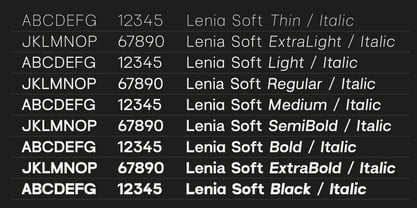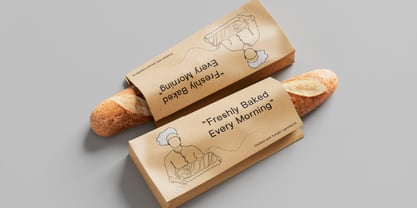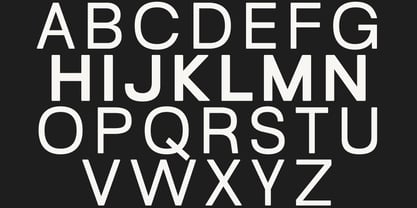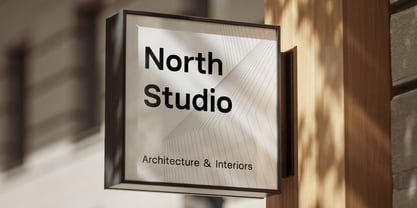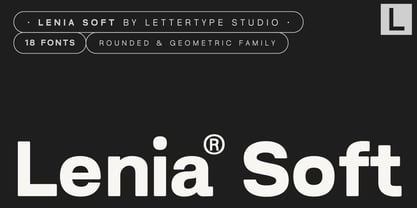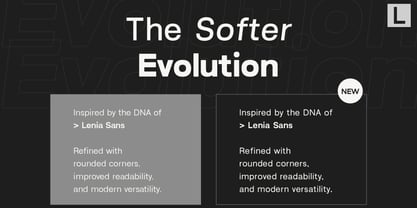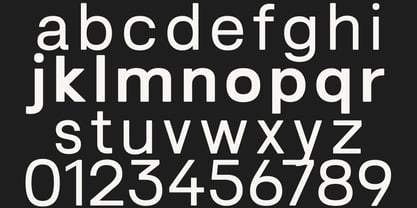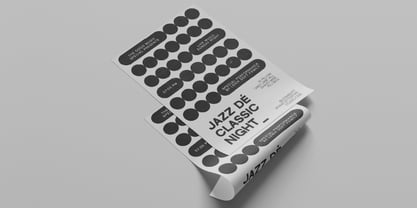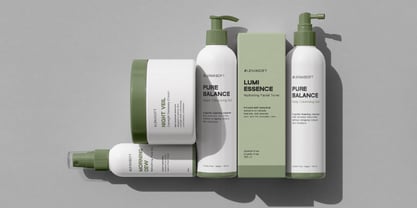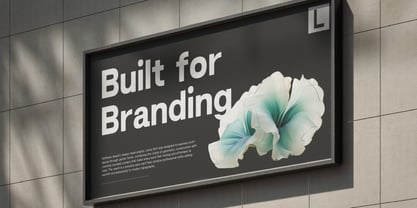
Lenia Soft
by Lettertype Studio
The Lenia Soft Font Family was designed by Diki Pradipta Tri Atmojo and published by Lettertype Studio. Lenia Soft contains 19 styles and family package options. More about this family
Lenia Soft is a modern rounded geometric sans serif designed to bring together clean precision and approachable warmth in one versatile type family. Inspired by the original DNA of Lenia Sans, it introduces softer corners and smoother details while maintaining the balanced proportions and geometric clarity that define contemporary typography. The result is a font family that feels refined, professional, and effortlessly friendly across both display and text applications.
Featuring 18 styles from Thin to Black with matching Oblique versions, Lenia Soft provides designers with a complete typographic system for branding, editorial layouts, UI/UX, web design, packaging, advertising, presentations, social media, and corporate identity. Rich OpenType features, extensive Latin language support, and carefully refined spacing make Lenia Soft a dependable choice for modern creative projects that demand both personality and exceptional readability.